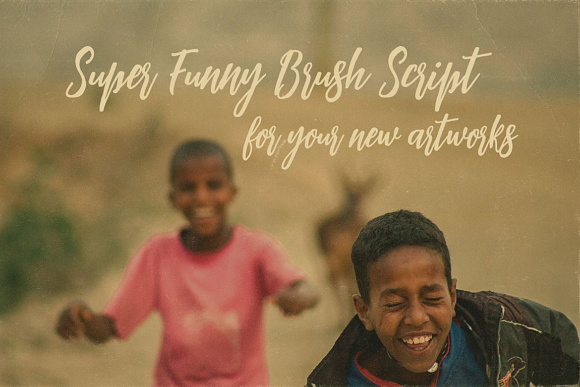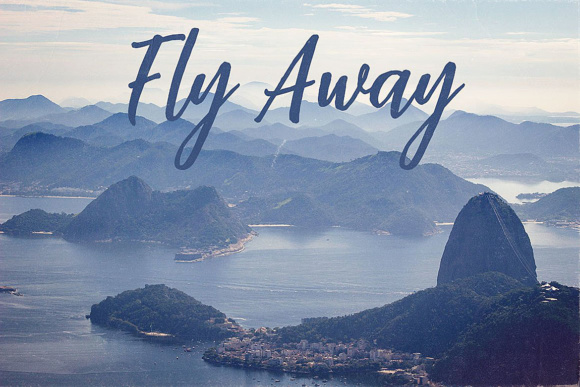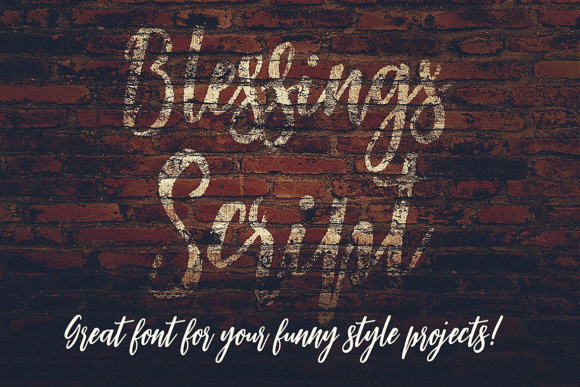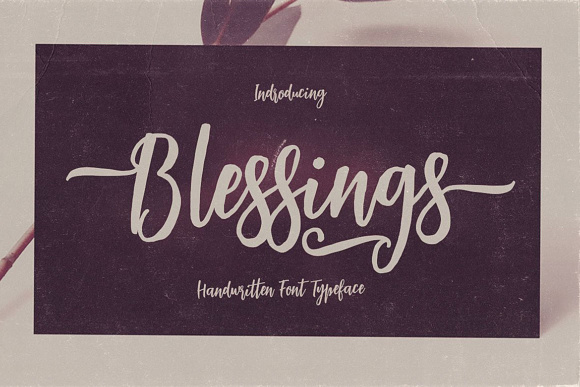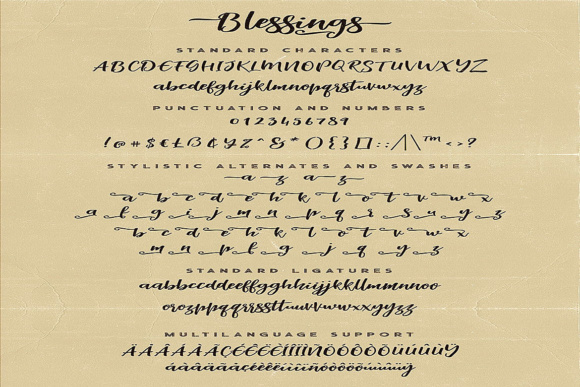
Blessings Font: The Perfect Brush and Funny Style Script Font for Your New Projects
Are you a designer or crafter looking for a unique and eye-catching font to elevate your projects? Look no further than Blessings Font, a beautiful brush and funny style script font that’s perfect for a wide range of applications. With its multi-language support and extensive range of stylistic alternates, Blessings Font is the ideal choice for anyone looking to add a touch of personality and whimsy to their work.
What is Blessings Font?
Blessings Font is a carefully crafted script font that combines the elegance of a brush script with the playfulness of a funny style font. Its unique blend of curves and lines creates a distinctive look that’s both sophisticated and approachable. Whether you’re working on a branding project, a craft project, or simply looking for a font to add some personality to your digital content, Blessings Font is the perfect choice.
Key Features of Blessings Font
- Multi-language support: Blessings Font supports a wide range of languages, making it perfect for projects that require international appeal.
- Stylistic alternates: With a vast range of stylistic alternates, you can customize your text to fit your project’s unique style and tone.
- Brush and funny style script: The font’s unique blend of brush and funny styles creates a distinctive look that’s both elegant and playful.
Why Choose Blessings Font?
So why choose Blessings Font over other fonts on the market? Here are just a few reasons:
- Unique and eye-catching: Blessings Font is a one-of-a-kind font that will help your project stand out from the crowd.
- Versatile: With its multi-language support and range of stylistic alternates, Blessings Font can be used for a wide range of projects, from branding and advertising to crafting and DIY.
- High-quality design: Blessings Font is designed to the highest standards, ensuring a crisp and clear appearance even at small sizes.
Project Ideas for Blessings Font
Blessings Font is perfect for a wide range of projects, including:
- Branding and advertising: Use Blessings Font to create eye-catching logos, advertisements, and marketing materials.
- Crafting and DIY: Add a touch of personality to your crafting and DIY projects, such as handmade cards, gift tags, and more.
- Digital content: Use Blessings Font to add some whimsy to your blog posts, social media graphics, and other digital content.
In conclusion, Blessings Font is a unique and versatile font that’s perfect for designers and crafters looking to add some personality to their projects. With its multi-language support, extensive range of stylistic alternates, and high-quality design, Blessings Font is the ideal choice for anyone looking to create eye-catching and engaging content. So why wait? Download Blessings Font today and start creating!